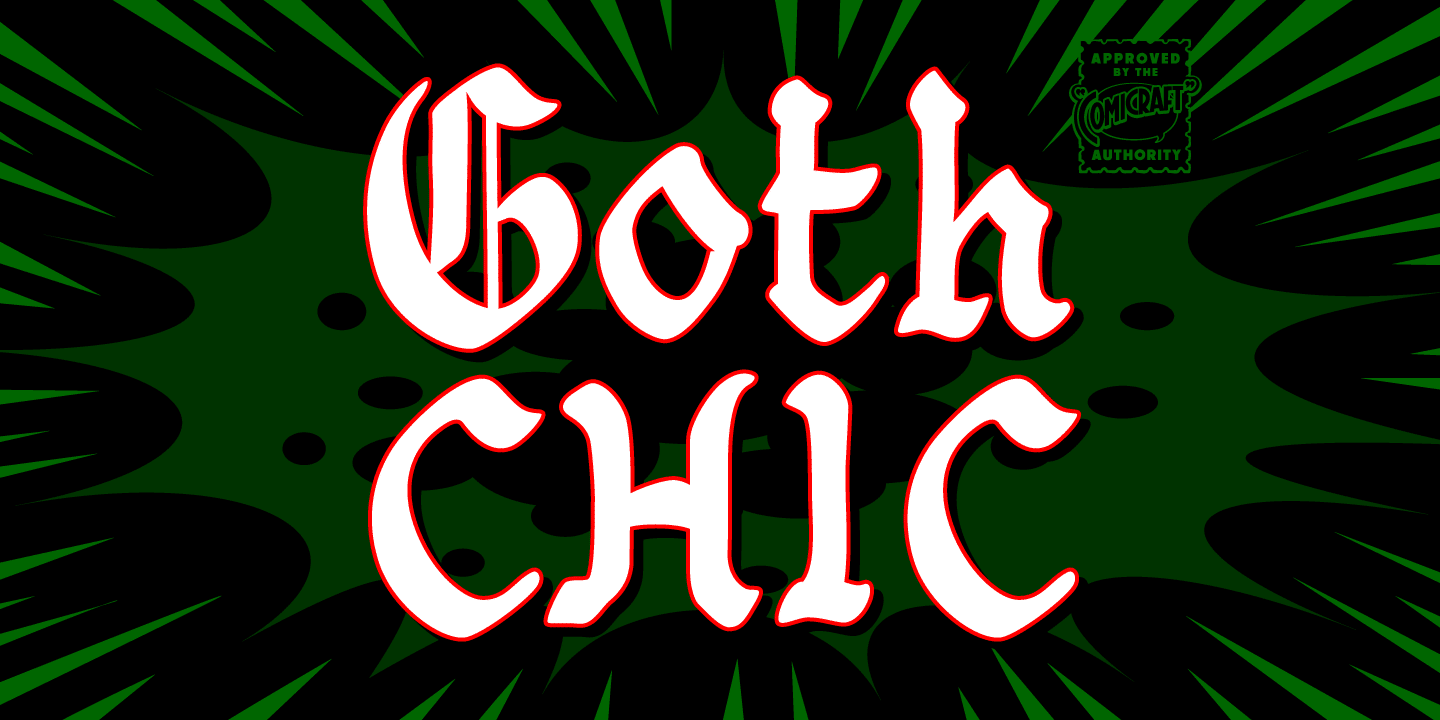
Goth Chic Font is ideal for gothic fashion magazines, alternative music venues, dark art galleries, gothic wedding invitations, alternative lifestyle brands, dark beauty salons, gothic jewelry boutiques, and sophisticated dark aesthetic campaigns. This elegant typeface brings gothic sophistication and dark romance to any design project celebrating alternative culture with refined taste and sophisticated darkness.
What makes Goth Chic Font exciting is its perfect fusion of gothic darkness with contemporary elegance that captures the sophisticated beauty and refined aesthetics of modern gothic culture and alternative fashion. The dramatic letterforms feature elegant gothic proportions and chic styling that create an unmistakably sophisticated dark appearance. Each character embodies dark romance and elegant rebellion, making it ideal for brands that celebrate gothic culture with sophistication, alternative beauty, and the refined artistry of dark aesthetics.
The Goth Chic Font family typically includes regular and bold weights with complete uppercase and lowercase letters, numbers, punctuation marks, and gothic symbols. Many versions feature additional dark decorative elements, elegant gothic motifs, and sophisticated alternative symbols that enhance the chic gothic aesthetic and provide creative flexibility for alternative fashion and dark luxury design applications.
Whether you're developing gothic luxury brands or creating sophisticated alternative materials, Goth Chic Font Free Download offers unmatched dark sophistication and gothic elegance. This refined typography choice transforms ordinary text into dark glamour statements that resonate with audiences appreciating gothic culture and sophisticated alternative aesthetics. The font's elegant construction ensures exceptional performance across alternative luxury applications while maintaining its distinctive gothic character that makes every design project feel like haute couture for the sophisticated gothic soul where darkness meets elegance in perfect alternative harmony.